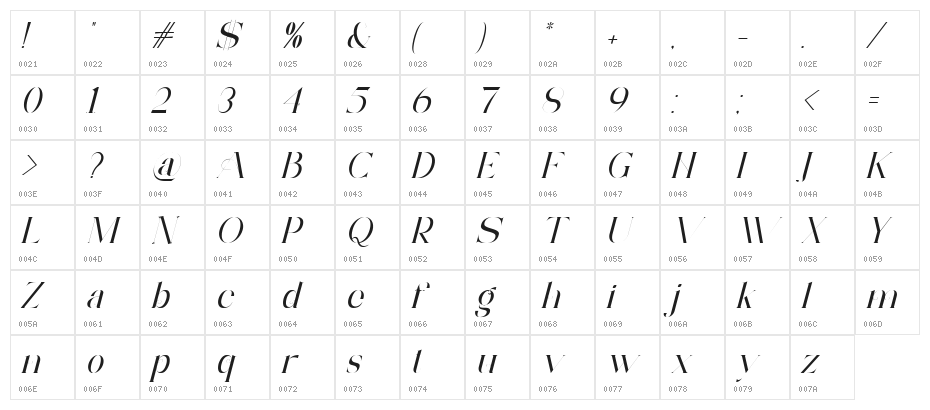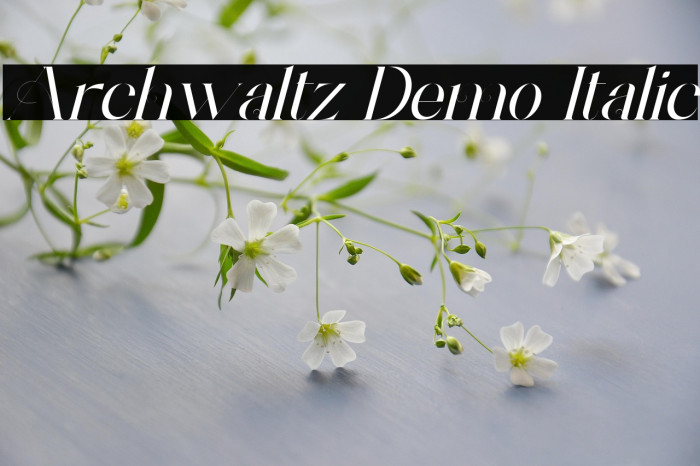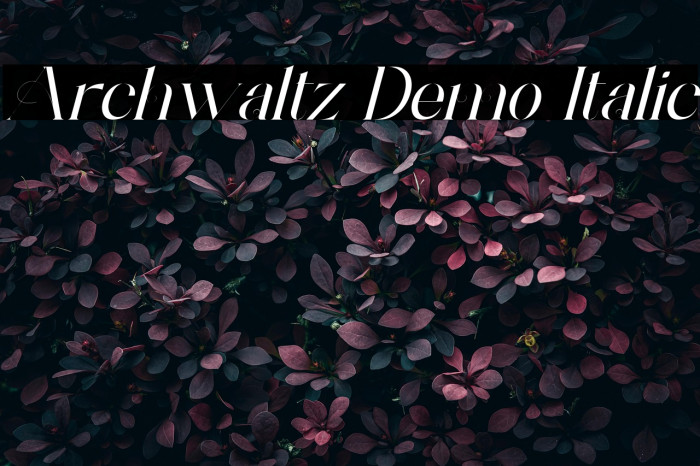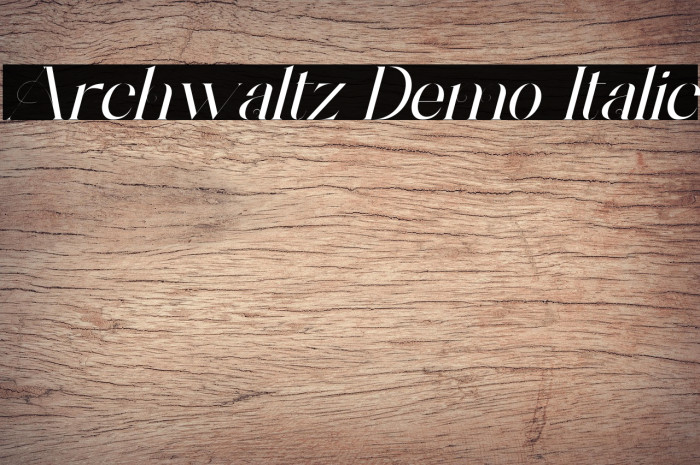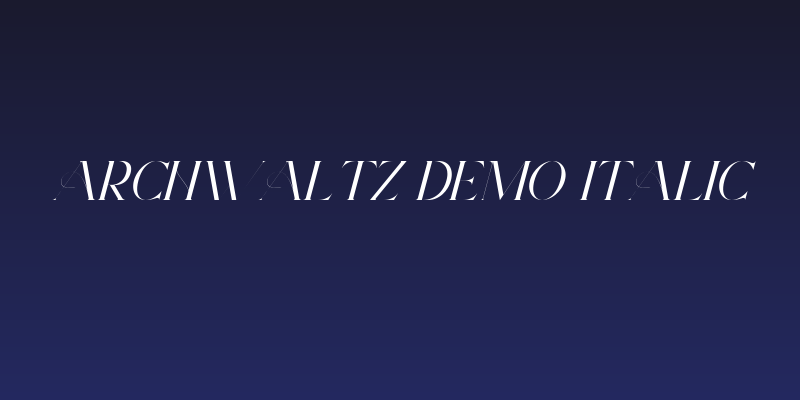
Archwaltz Demo Italic Font
Archwaltz Demo Italic Description
This font exhibits a sophisticated and elegant style with a pronounced italic slant, giving it a dynamic and flowing appearance. The characters are crafted with high contrast between thick and thin strokes, enhancing its dramatic flair. The serifs are sharp and refined, adding a touch of classic elegance. The uppercase letters are tall and commanding, while the lowercase letters maintain a graceful continuity. The numerals are distinct and stylish, complementing the overall aesthetic. Special characters are well-integrated, maintaining the font's cohesive look.
Overall StyleElegant
Use CaseHeadlines, Logos, Editorial design
Proposed ProjectsIdeal for luxury branding, editorial design, fashion magazines, and elegant invitations.